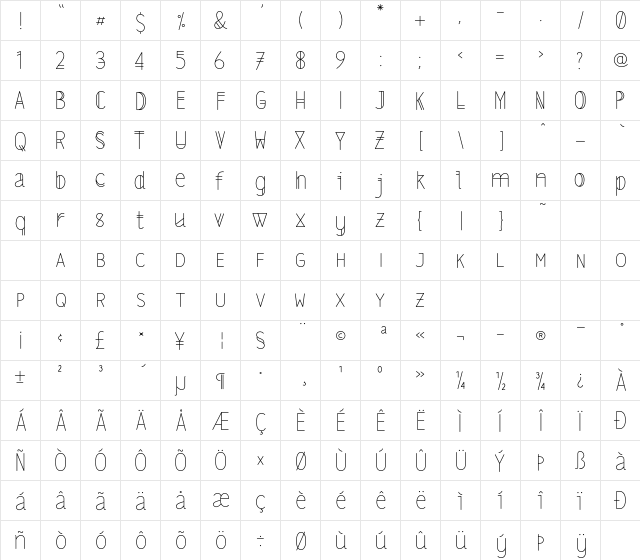
LS LightAlt Font Preview
LS LightAlt
LS LightAlt Font Details
| Style | LightAlt |
| Foundry | BSozoo |
| Designer | BSozoo |
Design Context for LS Typeface
LS offers clean, dependable letterforms without strong stylistic allegiance, making it a practical choice for designers who need flexibility. Its slender proportions lend an understated elegance to any composition.